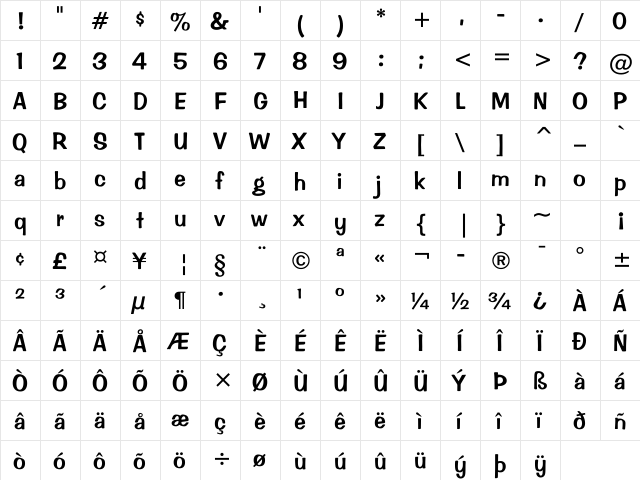
Brimfield Regular
Design Context for Brimfield Typeface
Brimfield takes a measured approach to typography — its balanced proportions and neutral character make it a reliable workhorse for both digital and print work.